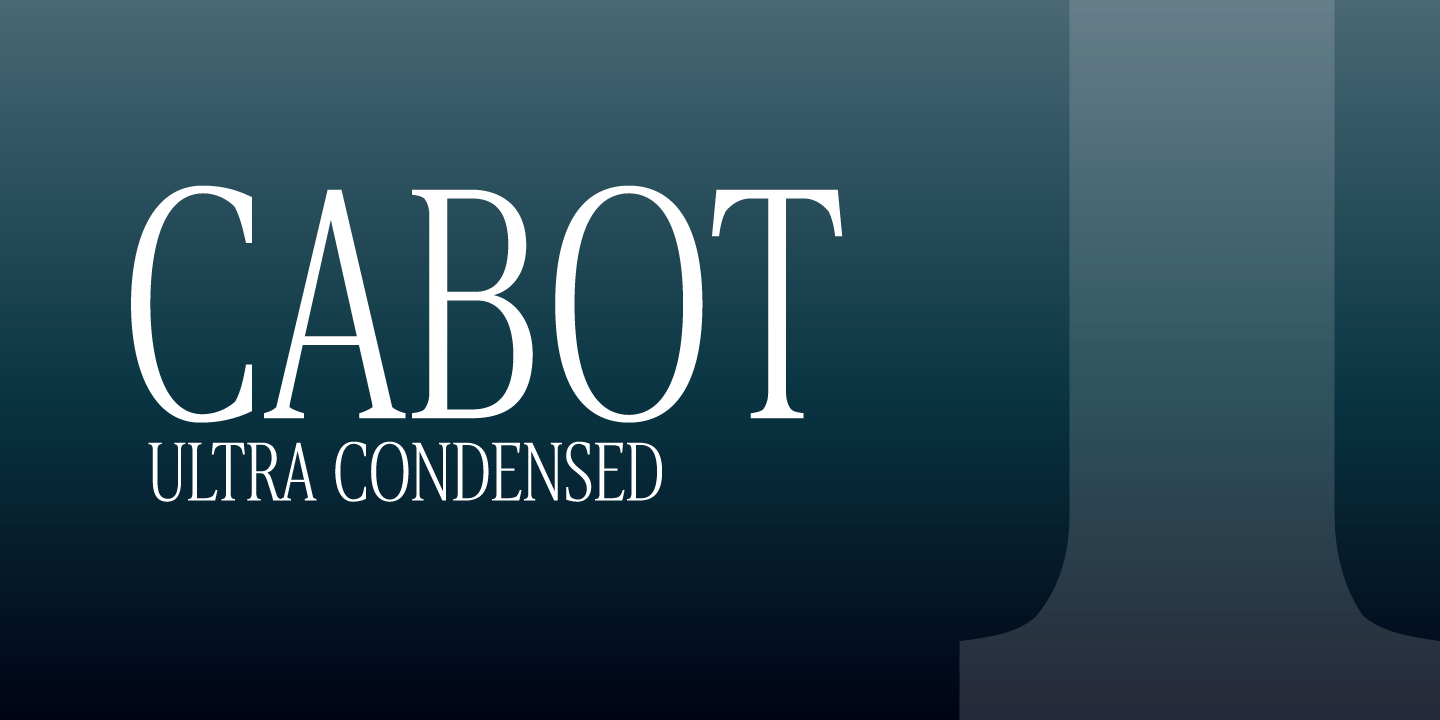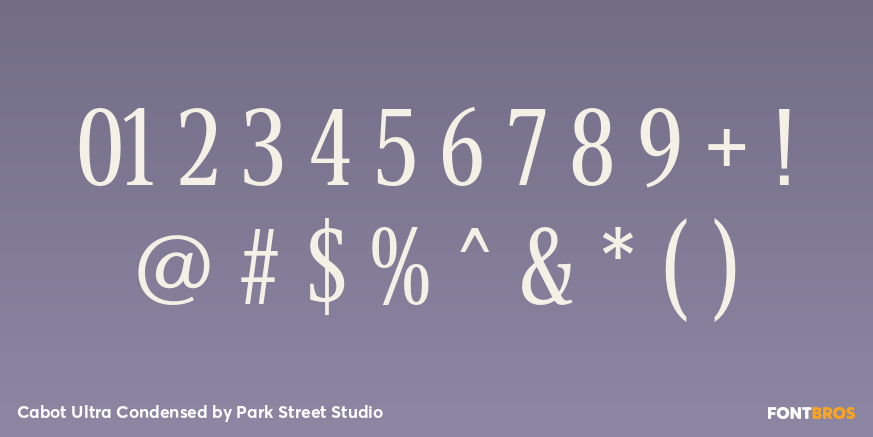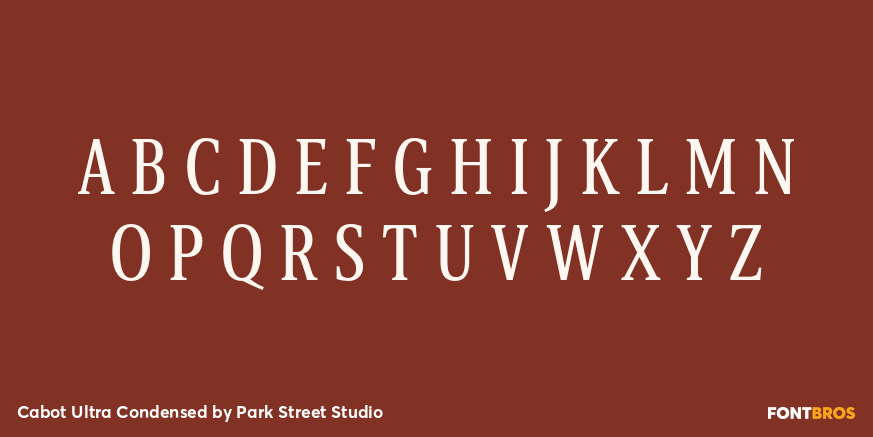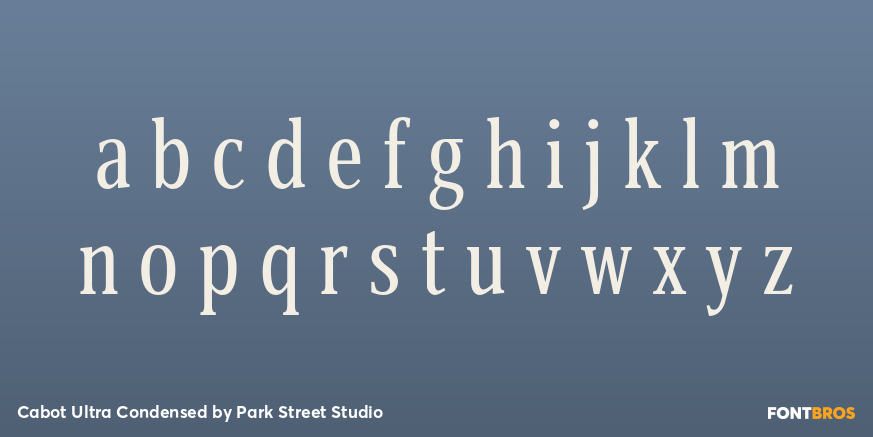
Cabot Ultra Condensed
The Cabot family is a distinctive serif typeface featuring a bracketed serif design, with a slight kink in it. Cabot Ultra Condensed is the widest of the seven widths and comes in seven weights, both roman and italic. All of the Cabot Ultra Condensed fonts have an extended character set that supports many Western European languages, and each offers a array of OpenType features including ligatures, proportional and tabular figures, superiors and inferiors, unlimited fractions and ordinals.